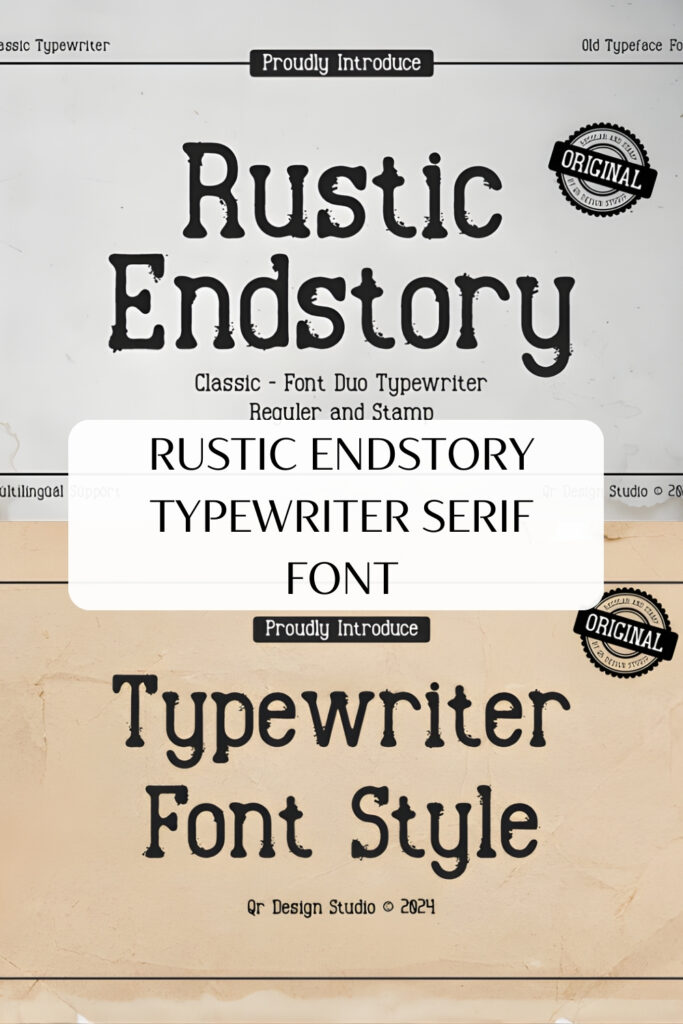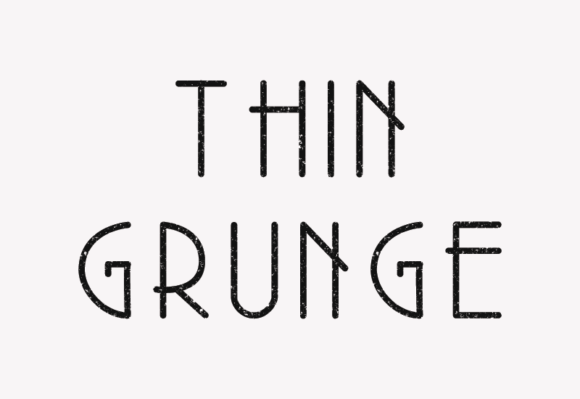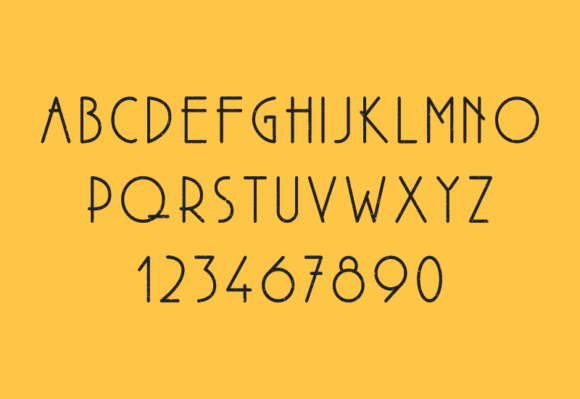
20 Essential Typewriter Serif Font Choices for Professional Graphic Design
Finding the perfect Typewriter Serif Font is like discovering a hidden relic in a digital world. Whether you’re aiming for mid-century office vibes or a gritty, eroded aesthetic, the right choice adds an unmistakable layer of soul and mechanical history to your creative projects.
1. Rustic Endstory Typewriter Serif Font
There is something incredibly grounding about the clack of a manual typewriter, and Rustic Endstory captures that tactile sensation perfectly. As a designer, I’m often looking for a Typewriter Serif Font that feels lived-in rather than digitally manufactured, and this typeface hits the mark with its beautifully weathered texture. It’s my go-to choice when I want to transport the viewer back in time, evoking the raw nostalgia of old manuscripts and the sincerity of analog communication.
Whenever I’m tasked with creating historical documents or themed event invitations, this Typewriter Serif Font adds a layer of authenticity that is hard to beat. Its classic structure and “ink-bleed” aesthetic make it a standout for unique literary works or branding projects that need a gritty, storyteller vibe. If you want your design to feel like a rediscovered treasure from a dusty attic, Rustic Endstory is the perfect tool to bridge the gap between the past and the present.
2. Thin Grunge Typewriter Serif Font
In a world full of heavy, bold typography, sometimes the most “extraordinary” thing you can do is go incredibly light. That is exactly why I love working with Thin Grunge. This Typewriter Serif Font offers a unique Western-style aesthetic that manages to be both gritty and minimalist at the same time. Its vintage proportions are perfectly balanced, but it’s that ultra-thin, weathered texture that really sets it apart from your standard machine-print faces. It feels less like a loud statement and more like a whispered secret from a forgotten telegram.
I’ve found this Typewriter Serif Font to be a lifesaver for web design and branding projects where I want a clean retro look without the visual clutter. Because it is so delicate, it works beautifully in high-end logos or editorial layouts that lean into a “less is more” philosophy. If you are aiming for a minimalist aesthetic but still want that raw, grunge character to shine through, Thin Grunge provides that perfect middle ground. It’s a sophisticated way to add texture to a modern interface while keeping everything feeling light and airy.
3. Thesmosa Typewriter Serif Font
When I’m looking for a balance between retro charm and clean, modern professionalism, Thesmosa is a standout choice in my collection. This Typewriter Serif Font is undeniably classy, stripping away the excessive grit of some distressed faces to provide a more polished, high-end look. It’s the kind of typeface that offers all the essential styles I need to ensure a project feels cohesive and successful, whether I’m working on a formal report or a minimalist brand identity.
In my own design workflow, I’ve found that this Typewriter Serif Font works beautifully for projects that require a sophisticated “editor’s” touch. Its structured letters and classic proportions make it incredibly readable, which is a massive plus for long-form content or elegant web headers. If you’re searching for a typewriter aesthetic that feels a bit more upscale and “boutique” rather than rugged, Thesmosa is a fantastic reliable tool to have in your kit.
4. Garphel Typewriter Serif Font
When I want to bridge the gap between “industrial machine” and “friendly modern,” Garphel is the first choice in my collection. This unique Typewriter Serif Font is a brilliant fusion of vintage mechanical charm and contemporary softness. What really draws me in as a designer are those thick, monospaced slab serifs paired with gently curved terminals. It captures that iconic typewriter rhythm but rounds off the sharp edges, making the whole aesthetic feel incredibly approachable and warm rather than cold and rigid.
In my recent branding projects, I’ve found this Typewriter Serif Font to be a powerhouse for editorial headlines and packaging where you need a distinct, nostalgic identity that still feels fresh on a digital display. It strikes that rare balance between structure and personality, ensuring high legibility while maintaining a playful, handcrafted soul. Plus, because it’s PUA encoded, I can easily toggle through alternates and glyphs to give my titles that extra bit of custom flair. If your next project needs to feel established yet welcoming, Garphel is a fantastic addition to your creative toolkit.
5. Intellecta Typewriter Serif Font
Projects calling for a raw, unfiltered aesthetic often lead me back to the absolute classics. Intellecta is a straightforward, no-nonsense Typewriter Serif Font staying incredibly true to its mechanical roots. It avoids being overly polished or modern, instead capturing that iconic, fixed-width rhythm that makes any document feel pulled straight from an old newsroom or a private investigator’s desk.
In my own design practice, I love using this Typewriter Serif Font to add a sense of “archival” authority to a layout. Whether layering it over a grainy photograph for a social media post or using it for a minimalist brand identity, its clean serif structure ensures high legibility while carrying that unmistakable vintage soul. For anyone needing a reliable, authentic typewriter style that gets the job done without unnecessary distraction, Intellecta remains a solid staple for your collection.
Conclusion
Choosing a Typewriter Serif Font isn’t just about nostalgia; it’s about bringing a tactile, human element to modern layouts. From clean, monospaced slabs to textured, “jumpy” variations, these fonts ensure your work stands out with creative honesty. Start typing your story with these timeless classics today!